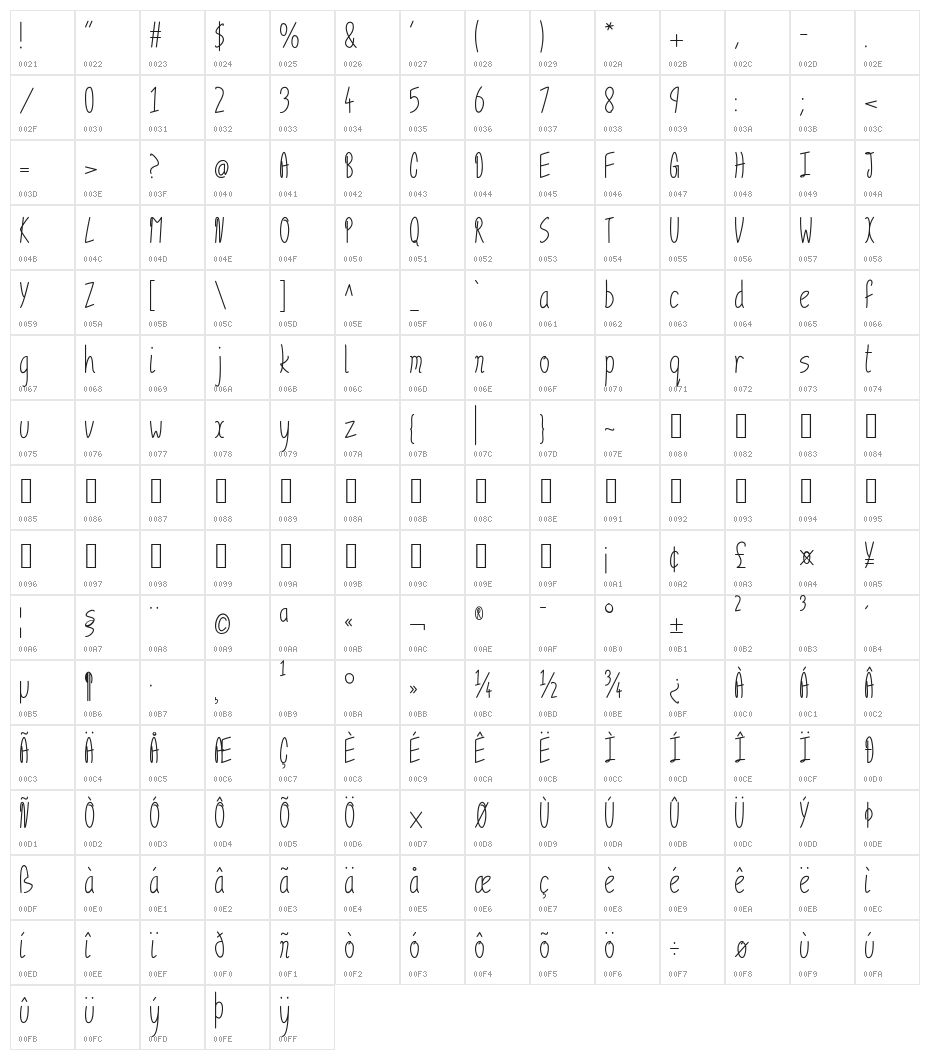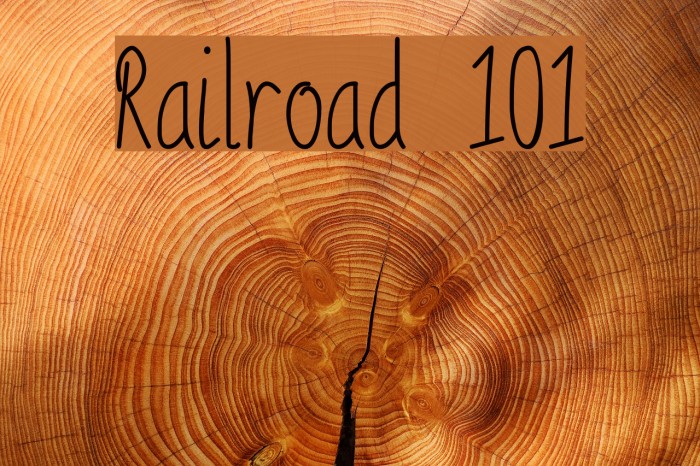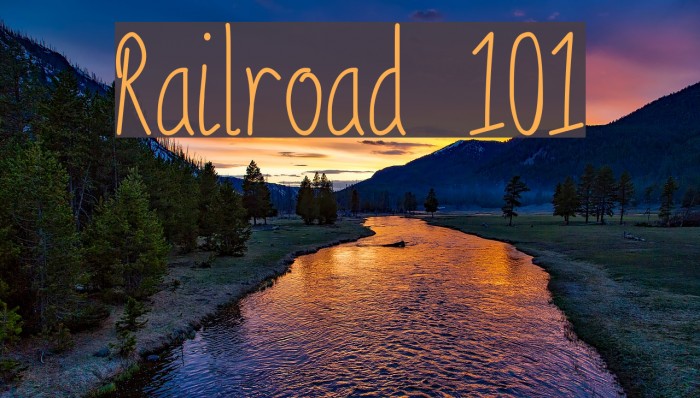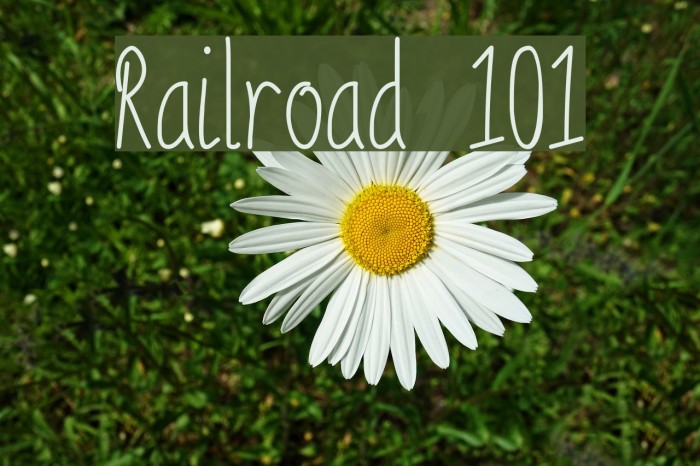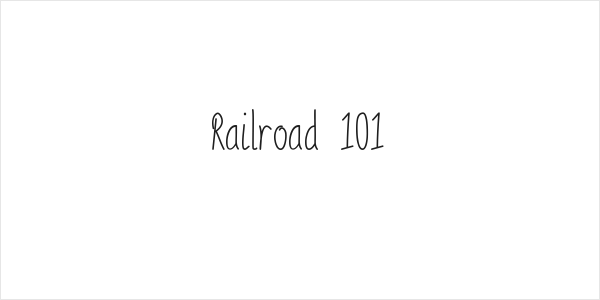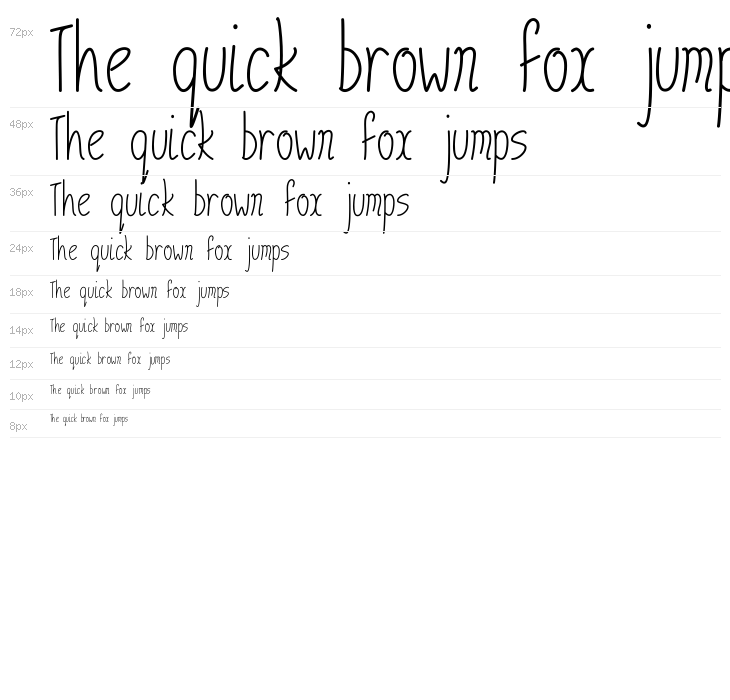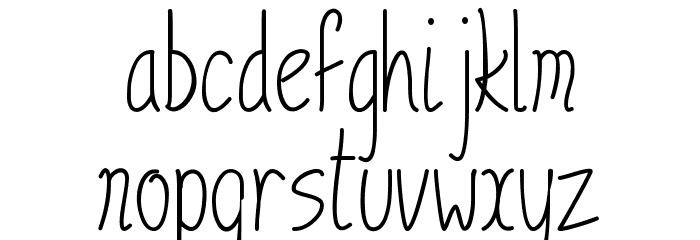
Railroad 101 Font
Railroad 101 Description
This font features a playful and casual handwritten style, characterized by its elongated and slightly irregular letterforms. The strokes are smooth and fluid, giving it a relaxed and informal appearance. Each character maintains a consistent height, while the width varies slightly, adding to its whimsical charm. The font includes both uppercase and lowercase letters, numerals, and a selection of punctuation marks and special characters. Its overall look is friendly and approachable, making it suitable for projects that require a personal touch.
| Use Case | Headlines, Informal text, Personal projects |
| Proposed Projects | Ideal for greeting cards, children's books, personal blogs, and informal branding. |